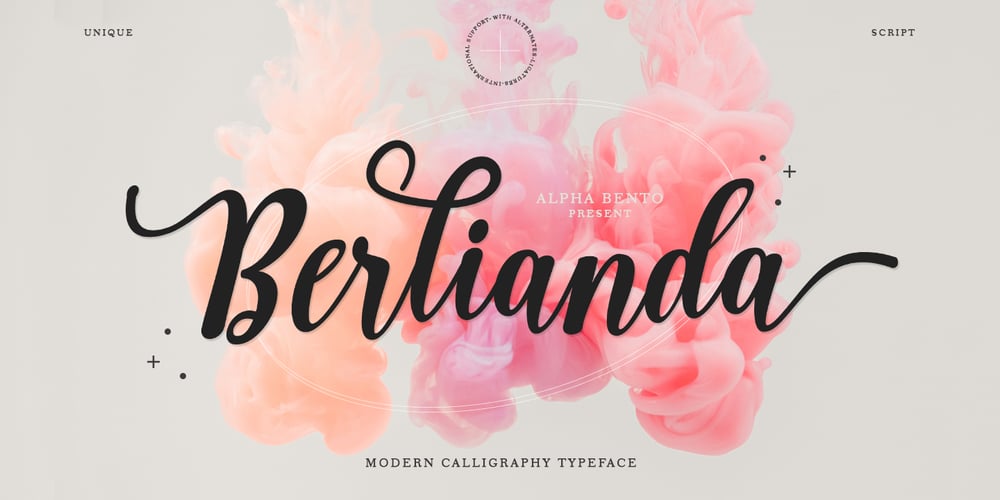
Berlianda Script Font Family was designed by Rinaldi Novianda and published by Alpha Bento. Berlianda Script contains 1 styles and family package options. Berlianda Script is a modern calligraphy typeface with a handwritten style, decorative characters, and a dancing baseline! Berlianda Perfect for use such as blog headers, branding, t-shirts, weddings, social media, product design, stationery, advertisements, clothing, book covers, business cards, greeting cards, branding, merchandise, handcrafted invitations and quotes and many more.Berlianda Script featuring an alternative to OpenType styles, ligatures and International support for most Western Languages is included. To activate the OpenType Stylistic alternative, you need a program that supports OpenType features such as Adobe Illustrator CS, Adobe Indesign & CorelDraw X6-X7, Microsoft Word 2010 or a later version.How to access all alternative characters using Adobe Illustrator:https://www.youtube.com/watch?v=XzwjMkbB-wQBerlianda Script is coded with PUA Unicode, which allows full access to all additional characters without having to design special software. Mac users can use Font Book, and Windows users can use Character Map to view and copy any additional characters for pasting into your favorite text editor / application.How to access all alternative characters, using the Windows Character Map with Photoshop:https://www.youtube.com/watch?v=Go9vacoYmBwThank you!